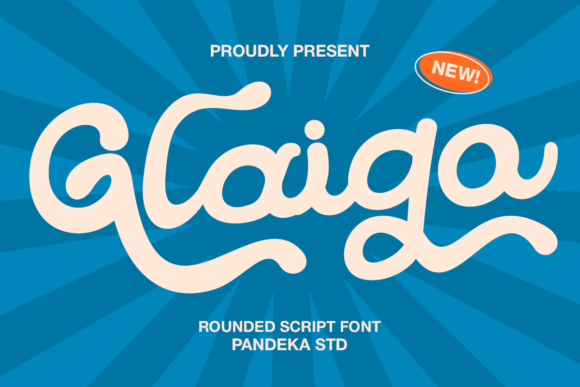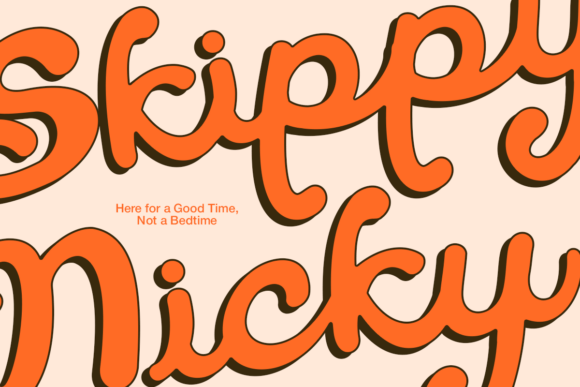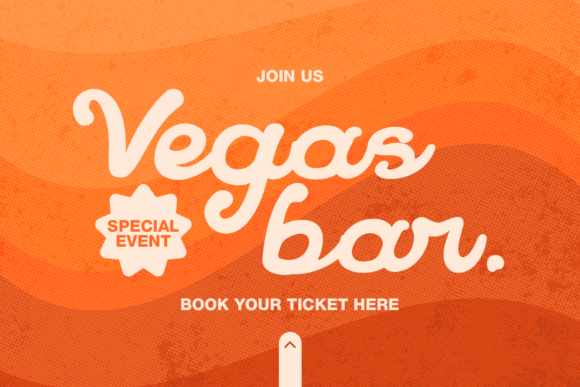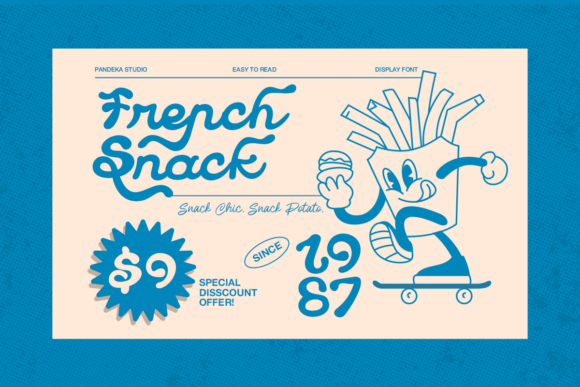
Glaigo Font: Retro Rounded Script for Playful Logo Design
About the Glaigo Font
Step up your design game with Glaigo Font, a font that exudes confidence and style. Glaigo – Fun Rounded Script Font
Glaigo is a bold and playful script font with smooth, curvy strokes and a casual retro charm. Perfect for fun rounded script, playful typography, and cheerful design, it’s ideal for logos, packaging, posters, social media, and creative branding. Its modern aesthetic and unique style make Glaigo a standout choice for designs that need both personality and flair.
Glaigo’s playful energy makes it a strong choice for headlines, logos, and short-form text in branding projects targeting younger demographics or brands with a fun, approachable personality. It excels in packaging design for products with a retro or vintage feel, and adds a touch of whimsy to posters and social media graphics. However, its bold strokes and irregular letter spacing make it less suitable for body text or UI elements requiring high readability.
Pairing Glaigo effectively requires considering its rounded, informal style. A clean sans-serif like Open Sans or Lato provides a solid counterpoint for readability in supporting text. For a more sophisticated feel, a geometric sans-serif such as Montserrat can add a touch of modern elegance. Alternatively, a classic serif like Playfair Display can offer a touch of traditional refinement, creating a pleasing contrast between the formal and informal.
Glaigo’s overall personality is best described as bold, friendly, and retro-modern. Its charm works best for projects that need a vibrant, approachable feel, steering clear of contexts demanding sophistication or extreme minimalism.
Glaigo Font Usage Examples
Glaigo Font Example